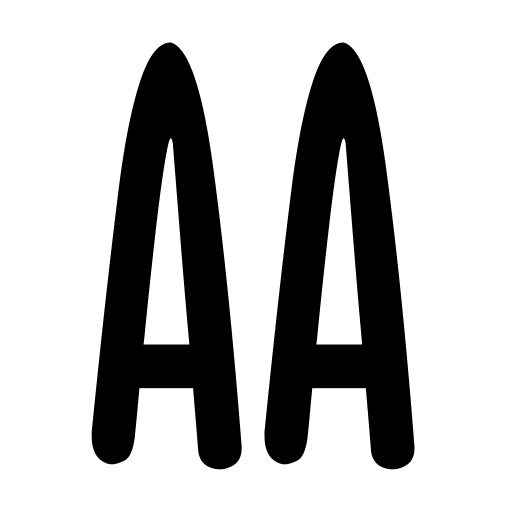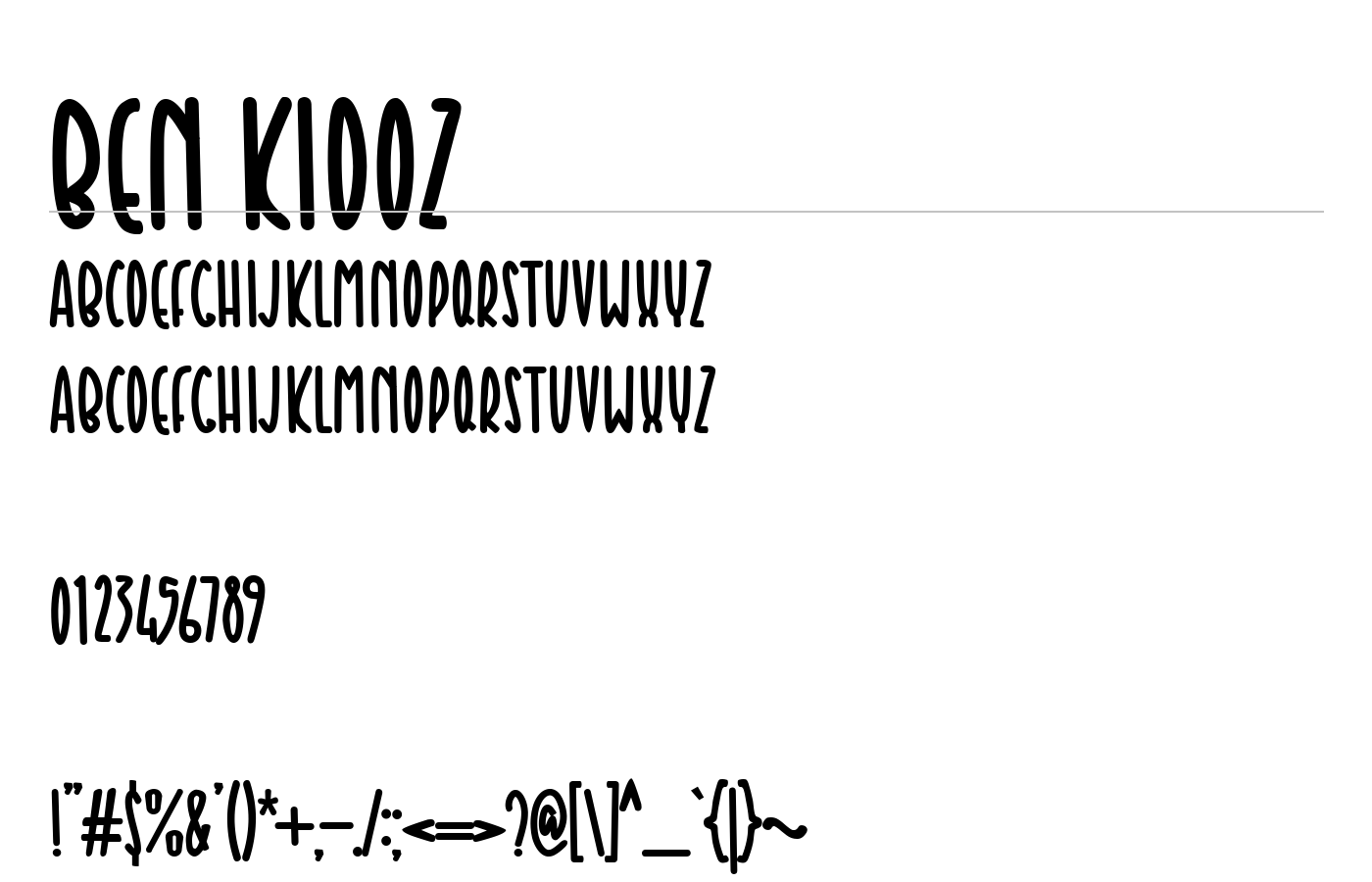
Ben Kidoz is a playful, hand-drawn sans serif font with tall, narrow letterforms that convey a friendly and informal vibe. Its slightly irregular strokes and whimsical shapes make it perfect for children’s designs, creative projects, or casual branding where a fun and approachable style is desired. This font works well in headlines, logos, and packaging that seek to express energy and originality.
Ben Kidoz Font